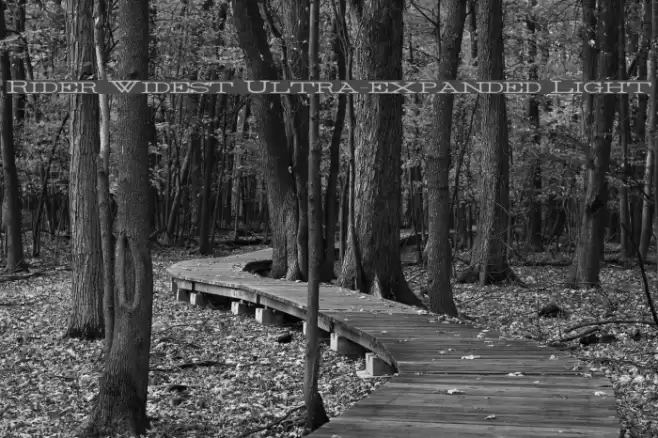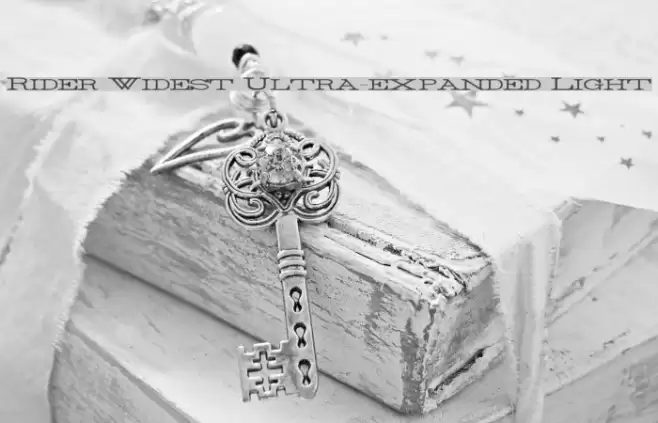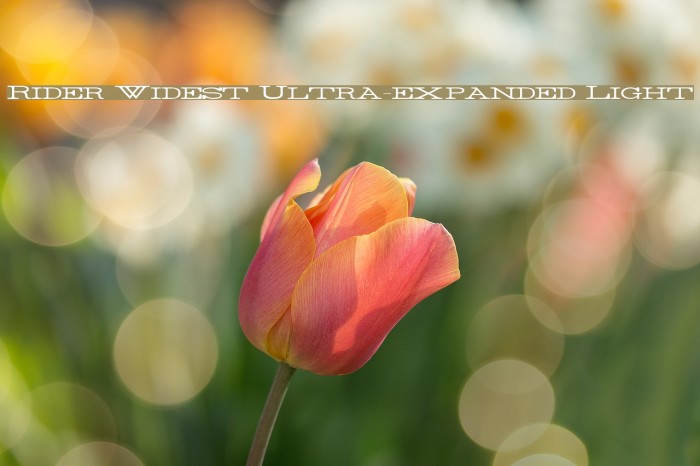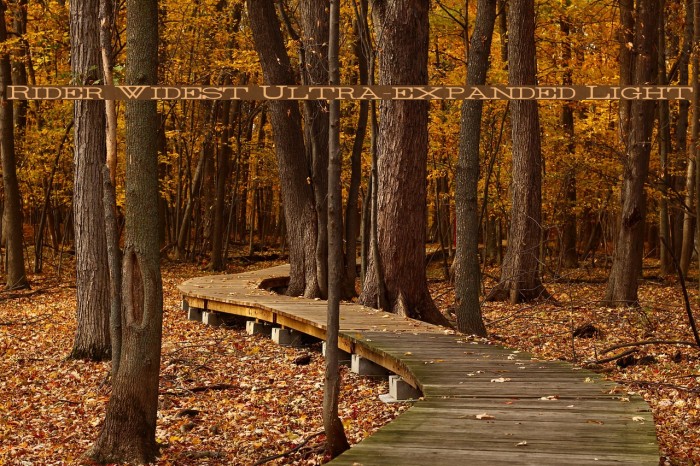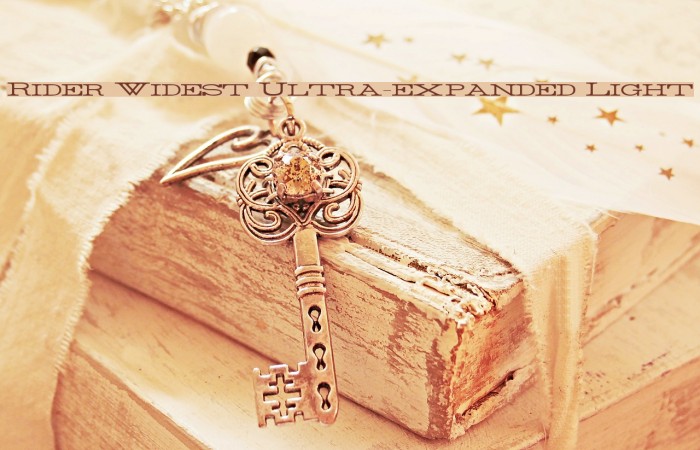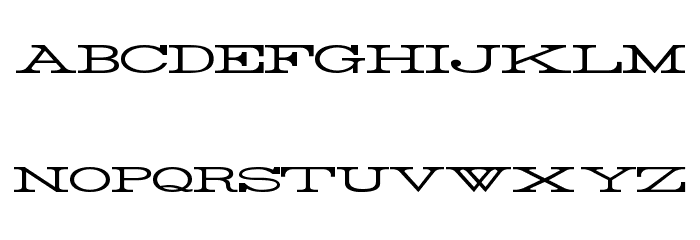
Rider Widest Ultra-expanded Light Font
Rider Widest Ultra-expanded Light Description
This font is a striking example of ultra-expanded typography, characterized by its wide letterforms and light weight. The uppercase letters exhibit a bold presence with sharp serifs and a modern aesthetic. The lowercase letters maintain a consistent style, offering a harmonious blend with the uppercase. The numerals are distinct and easily readable, featuring the same expanded style. Special characters are elegantly designed, adding a touch of sophistication. This font's unique style makes it ideal for projects that require a strong visual impact, such as branding, headlines, and advertising.
An ultra-expanded, light serif font with a modern and bold aesthetic from Uncategorized fonts.
- Proposed Projects: Ideal for branding, headlines, advertising, and any project requiring a strong visual impact.
- Width: Expanded
- Character Spacing: Wide
- Use Case: Headlines, Logos, Branding